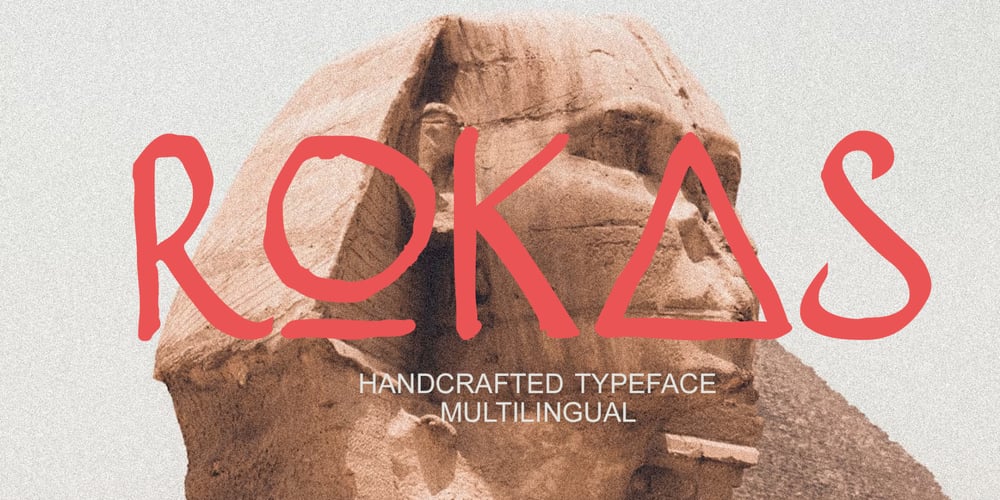
Rokas Font Family was designed by Mohamad Farhan Ramadhan and published by Mofr24. Rokas contains 4 styles and family package options. Introducing “Rokas,” a handcrafted typeface seamlessly blending history with modern tribal aesthetics. Its textured, irregular shapes evoke a unique charm, making it ideal for titles, movie posters, book covers, headlines, print designs, and logos. With both medium and regular weights, this multilingual font offers versatility for diverse creative projects. Embrace the distinctive character of “Rokas” to infuse your designs with a touch of tribal-modern allure.